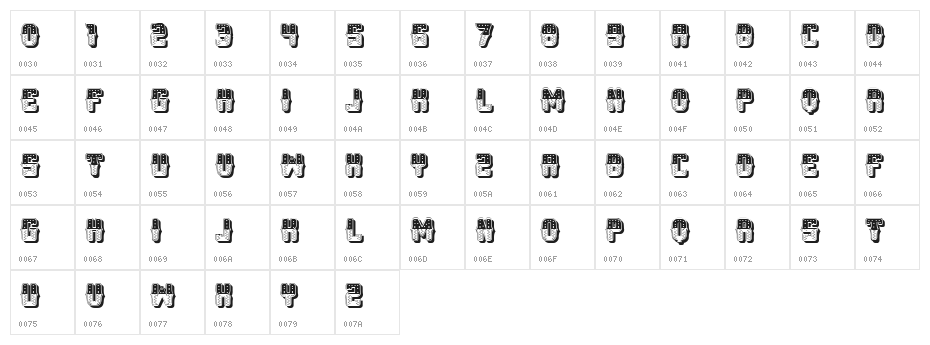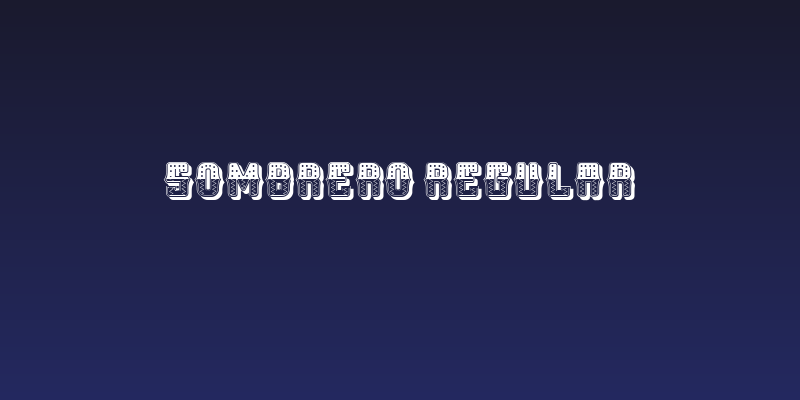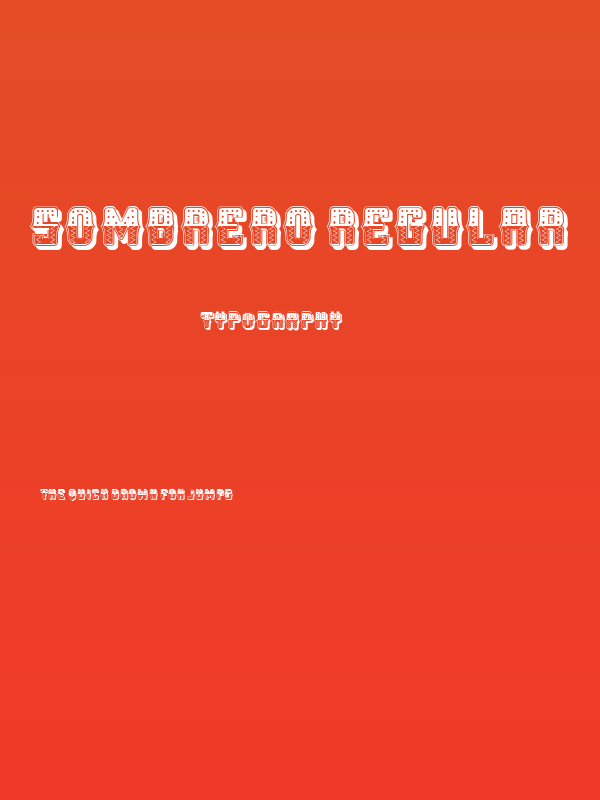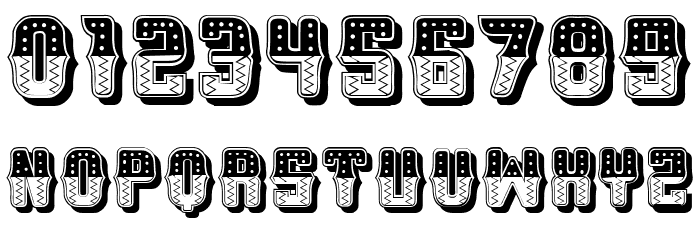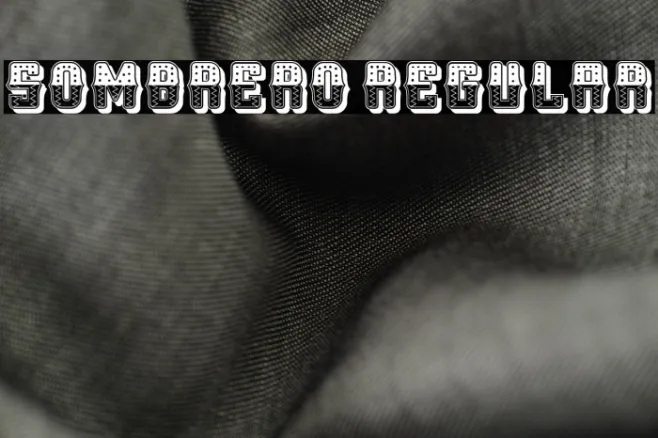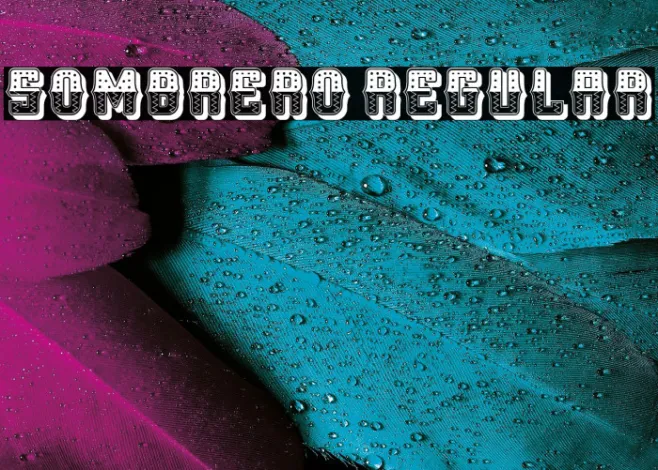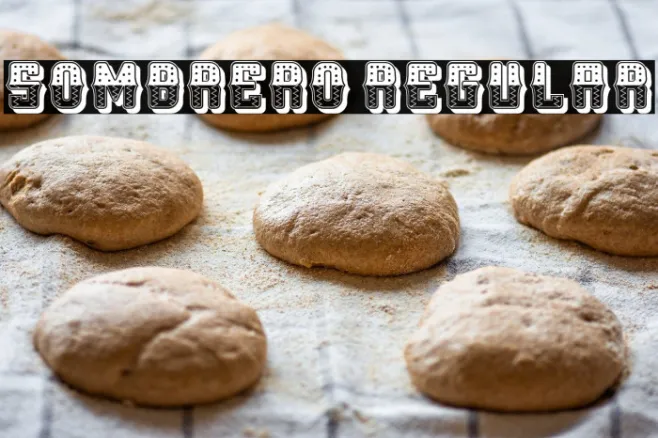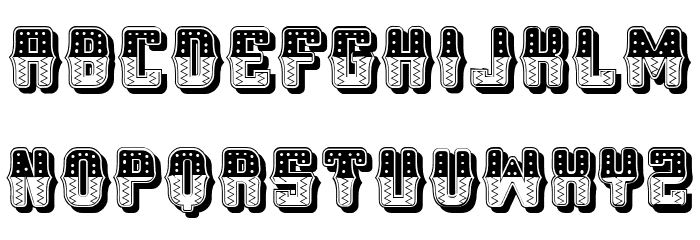
Sombrero Regular Font
Sombrero Regular Description
This font features a bold, decorative style with a playful and festive appearance. Each character is adorned with intricate patterns and embellishments, reminiscent of traditional Mexican motifs. The letters are outlined with a thick black border, enhancing their visibility and adding a dimensional effect. The interior of the characters is filled with a variety of textures, including dots and zigzag lines, which contribute to its lively and dynamic look. This font is perfect for capturing attention and conveying a sense of celebration and joy.